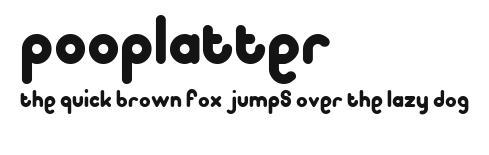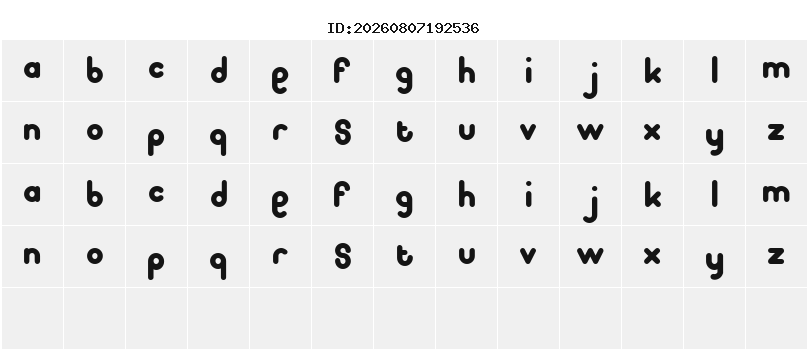
• Font Name: pooplatter
• Full Font Name: pooplatter
• Version: Version 1.00 2006 initial release
• Designer: Derek Clark
• Manufacturer: defaulterror
• Description: 2006. Designed for the defaulterror type foundry.
About pooplatter.ttf
pooplatter.ttf is a modern, elegant sans-serif font designed for ultimate readability and visual harmony. Perfect for branding, headlines, web design, and print materials.